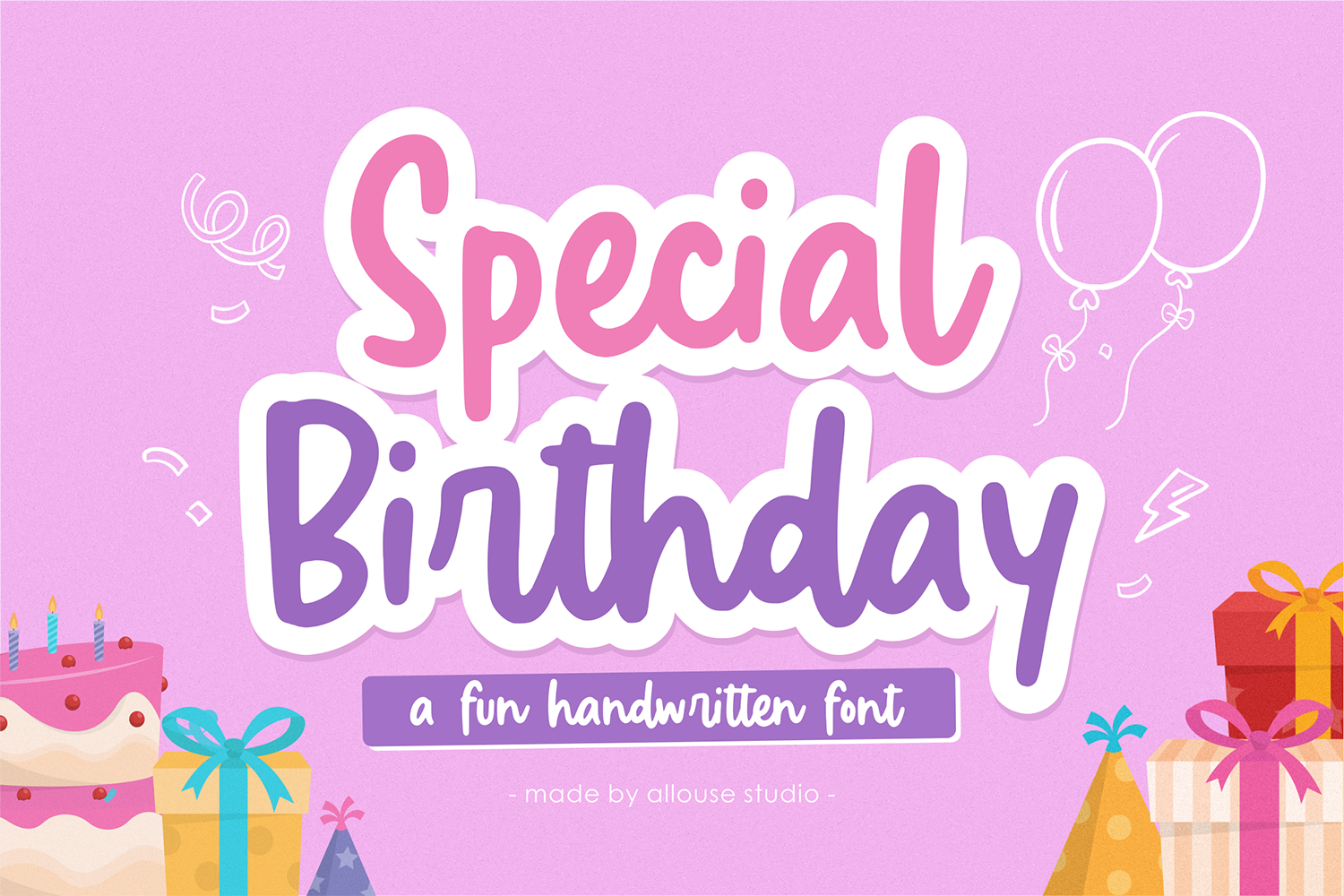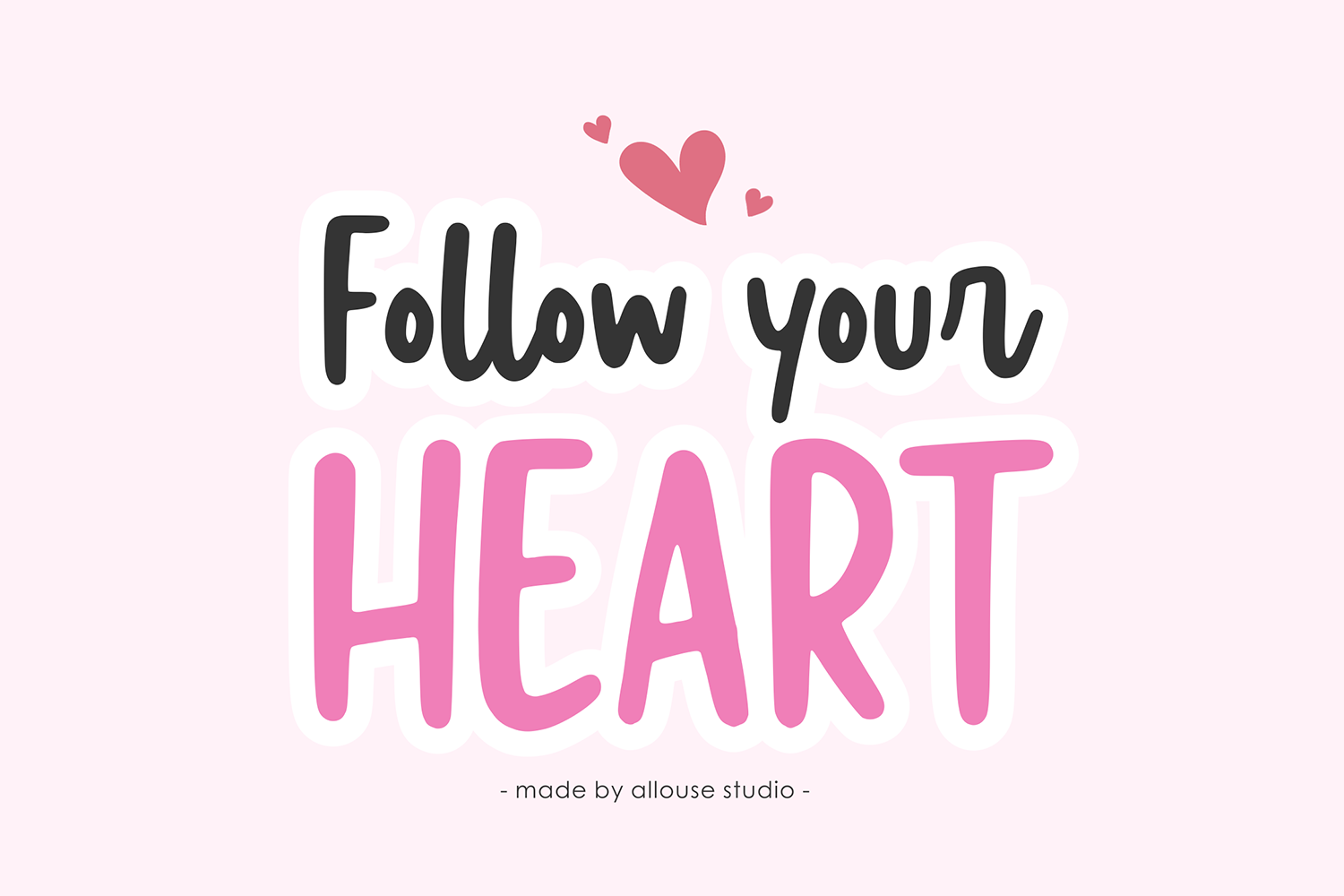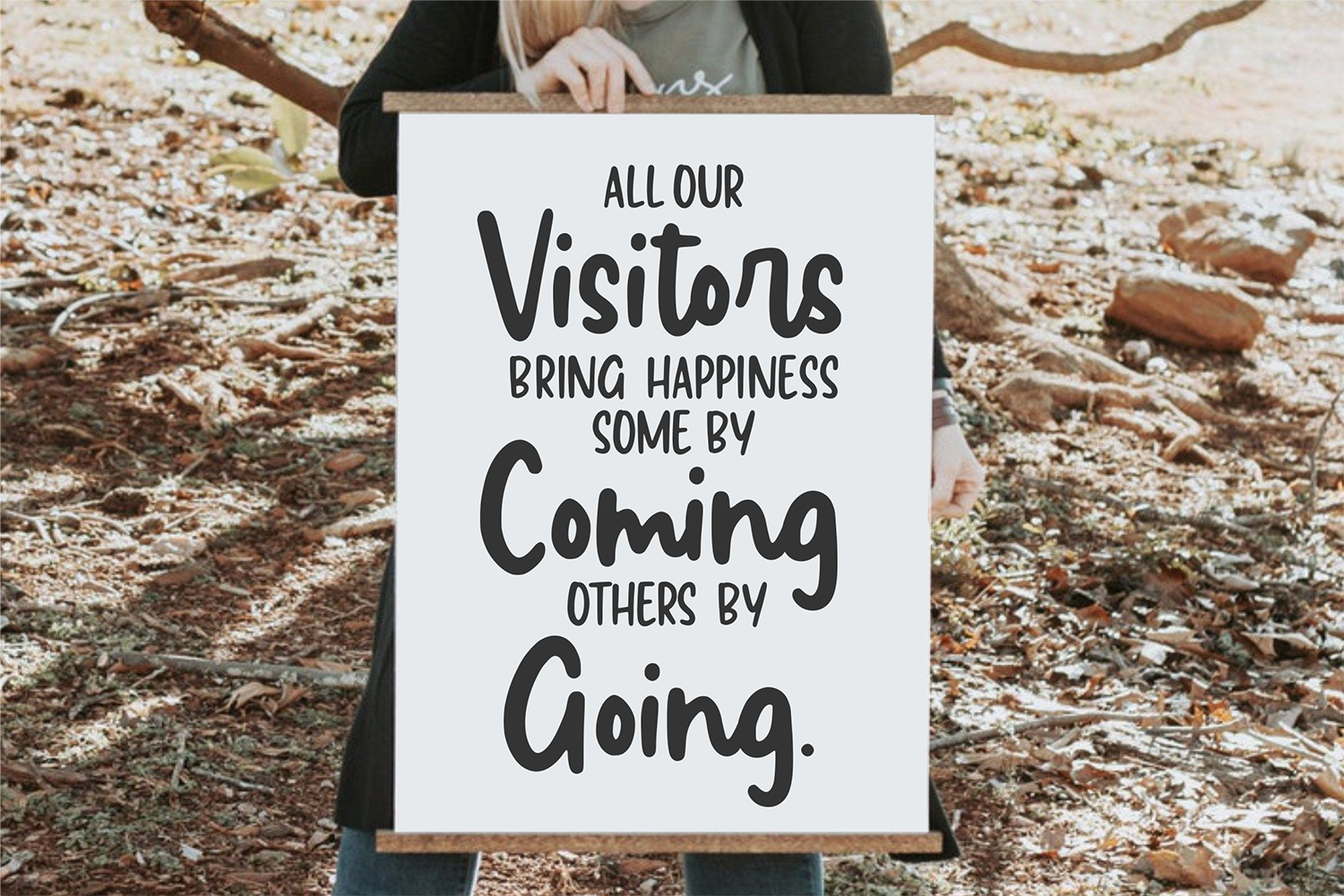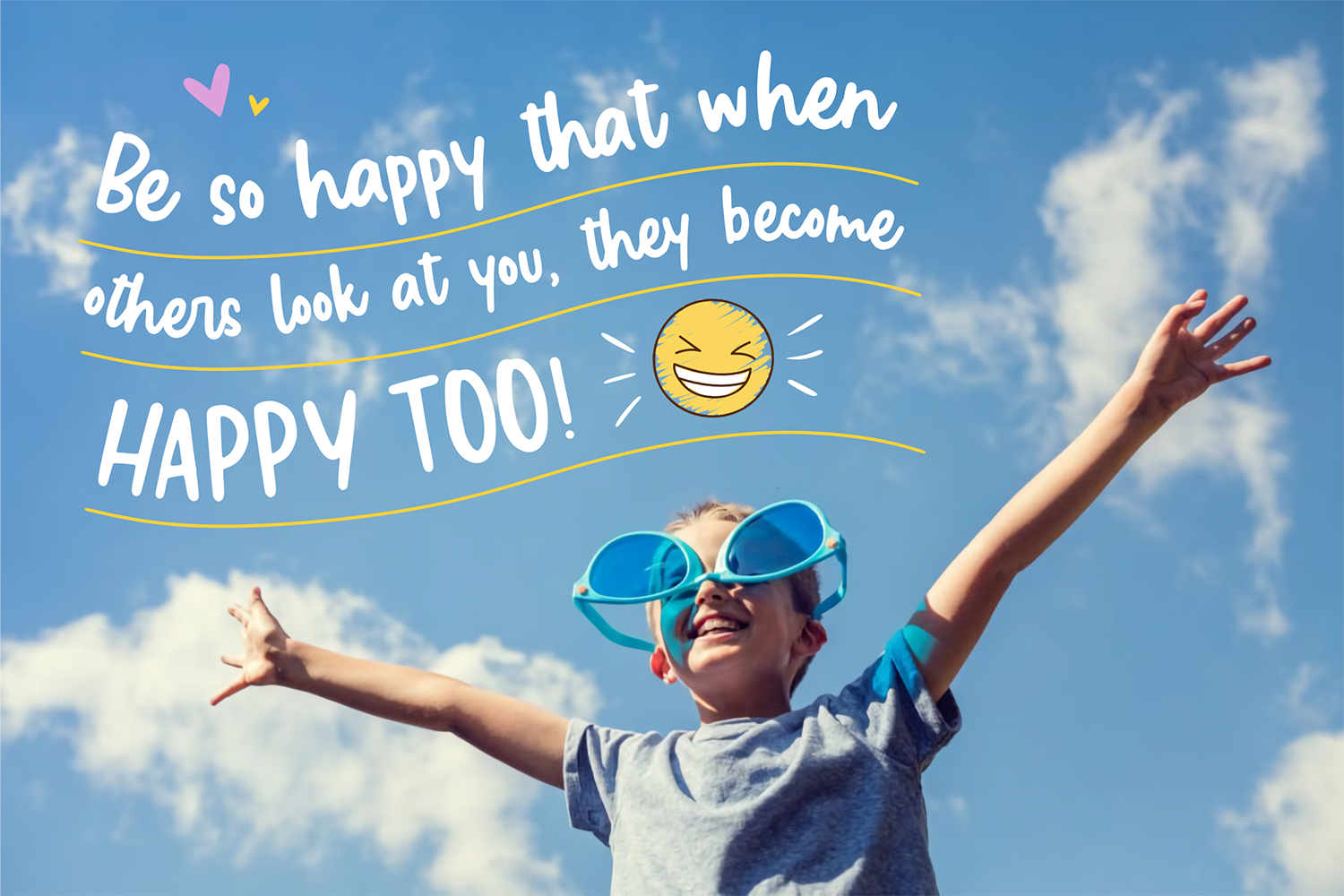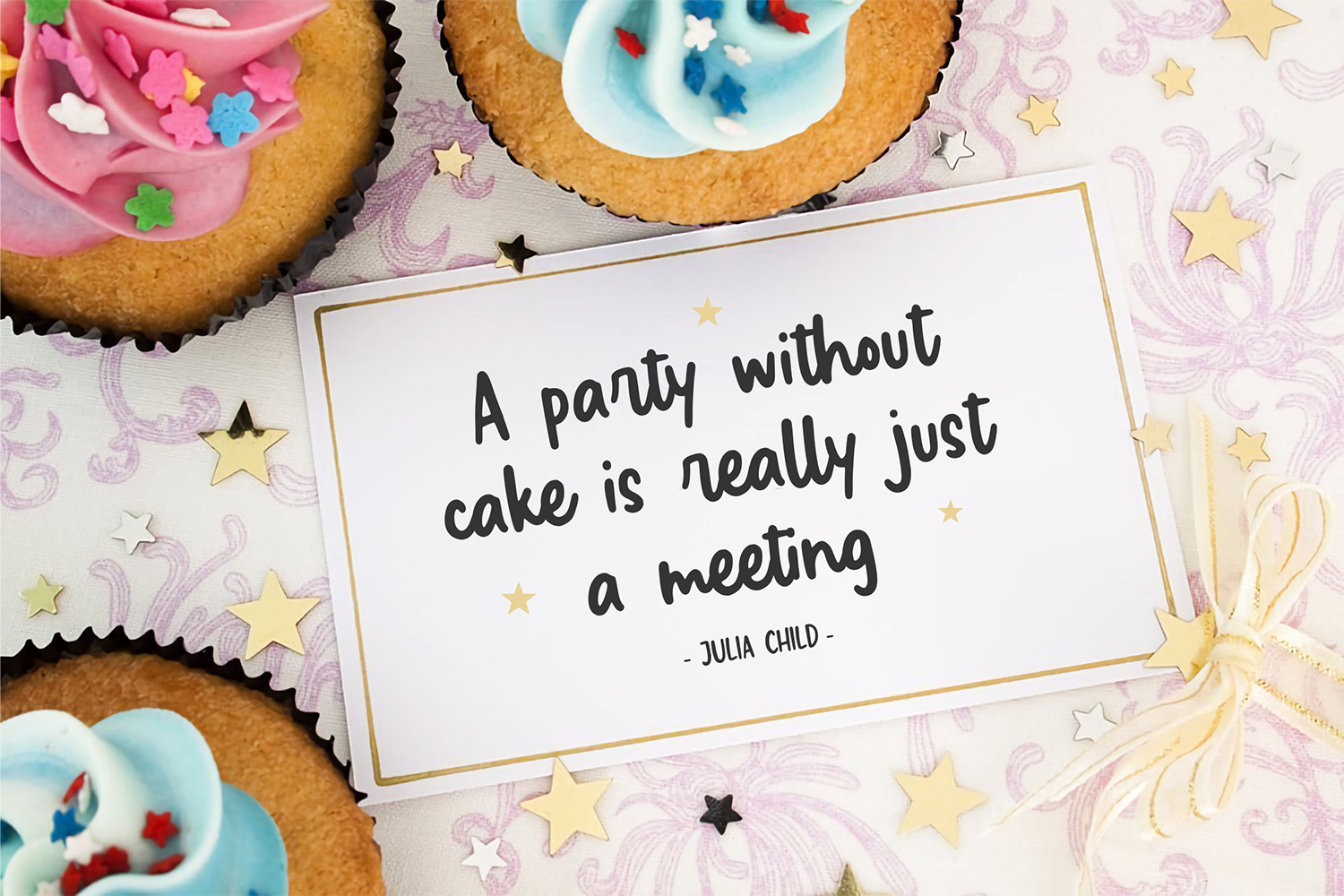
Special Birthday Free Font
Special Birthday Free Font is a delightful handwritten font that brings a sense of fun and excitement to any project. Whether you’re working on product packaging, a branding project, magazines, social media content, weddings, or simply need a font to express words above a background, Special Birthday is the perfect choice. This versatile font effortlessly blends playfulness and style, adding a touch of personality to your designs. Celebrate special occasions and elevate your creations with the vibrant charm of Special Birthday. This free typeface was designed by a talented Allouse Studio. If you like it don’t forget to check out the full version.